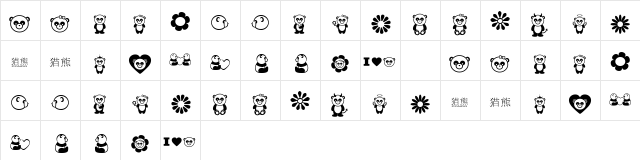
Pandamonium Regular
Design Context for Pandamonium Typeface
Pandamonium is a composed and adaptable typeface that performs quietly and consistently across a wide range of design contexts.